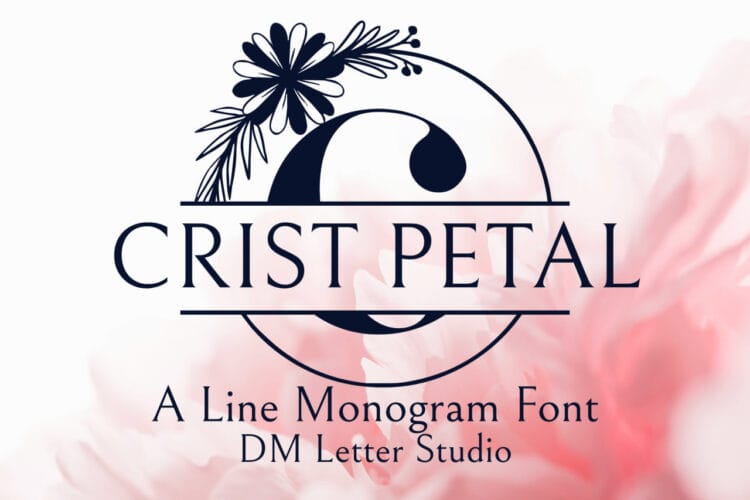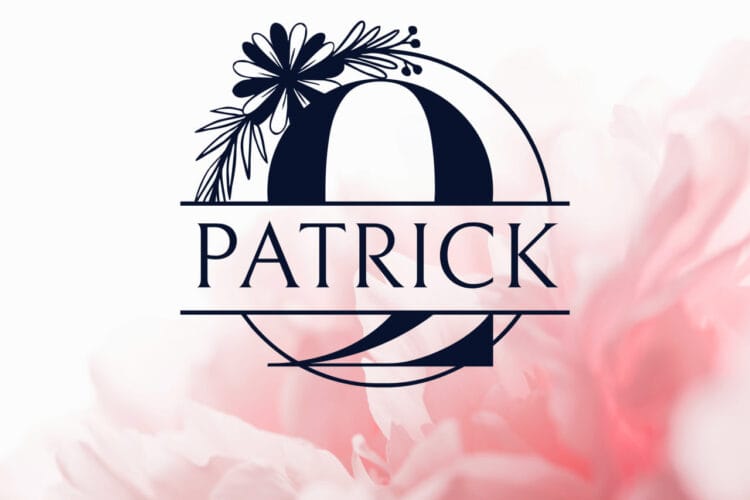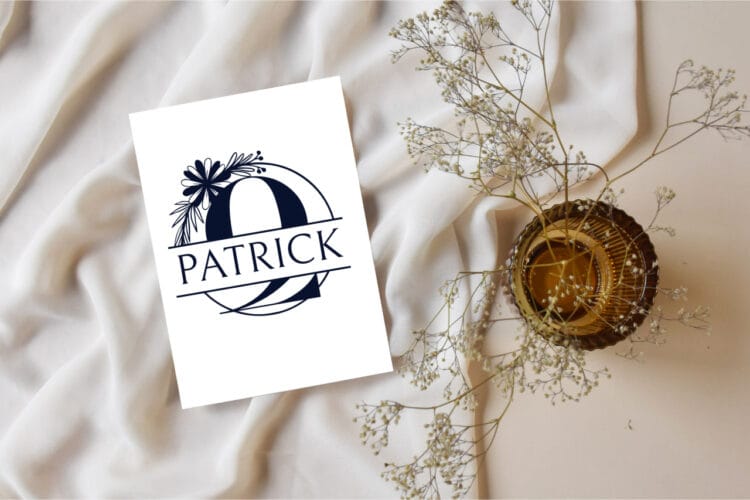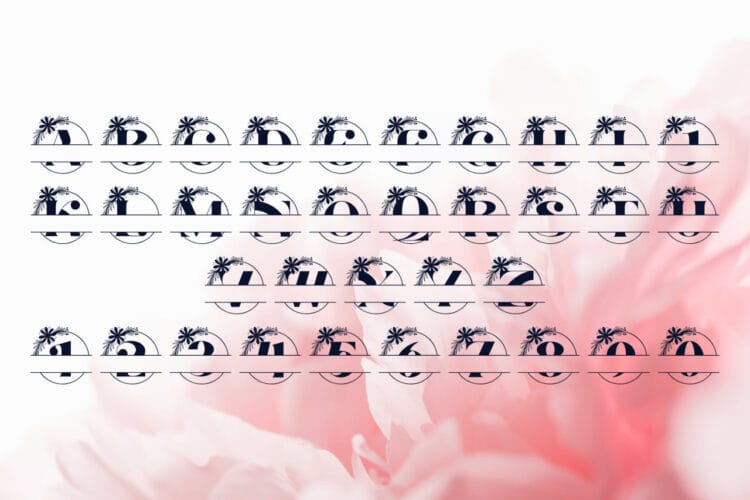
Meet Crest Petal Split Monogram, the Monogram Font
Crest Petal Split Monogram Font transforms initials into elegant crest-style emblems with soft petal accents and a refined center split. The structured crest brings a classic, formal feel. At the same time, the floral details add warmth and romance. Because the letterforms are balanced and open, the font stays easy to read at small sizes. Meanwhile, it looks detailed and graceful on larger prints. As a result, Crest Petal Split Monogram is perfect for weddings, romantic branding, stationery, and premium keepsake designs.
Where this split monogram font shines
Use single, double, or triple initials for logos, invitations, menus, place cards, and seals. In the center split, you can add surnames, wedding dates, or short phrases. Because the crest layout feels structured, designs look polished and timeless. However, the petal details soften the overall look. For example, you can place the monogram inside shields, frames, circles, or floral wreaths. In addition, Crest Petal Split Monogram keeps a cohesive style across invitations, labels, boxes, ribbons, and gift tags. Whether used on small stickers or large signage, it scales smoothly and remains elegant.
Design tips for Crest Petal Split Monogram
Keep the initials bold and leave enough space around the split line. This helps the inner text remain readable. Pair the monogram with a classic serif or a light sans serif for supporting details. Also, textured paper, vellum layers, and metallic foils enhance the refined floral look. Because the design already feels decorative, keep wording short. That way, the monogram stays the focal point on seals, favors, and small packaging.
Center split feature for names or dates
Crest-style monogram letterforms with petal accents
Select stylistic alternates for key letters
Curves optimized for foil, letterpress, engraving, laser cutting, and clean vinyl paths
Why creators choose this split monogram font
You want a monogram that feels classic, romantic, and easy to customize. At the same time, you need clarity across many formats. That is why Crest Petal Split Monogram Font stands out. It blends formal crest structure with floral softness. In the end, your designs feel polished, warm, and timeless.